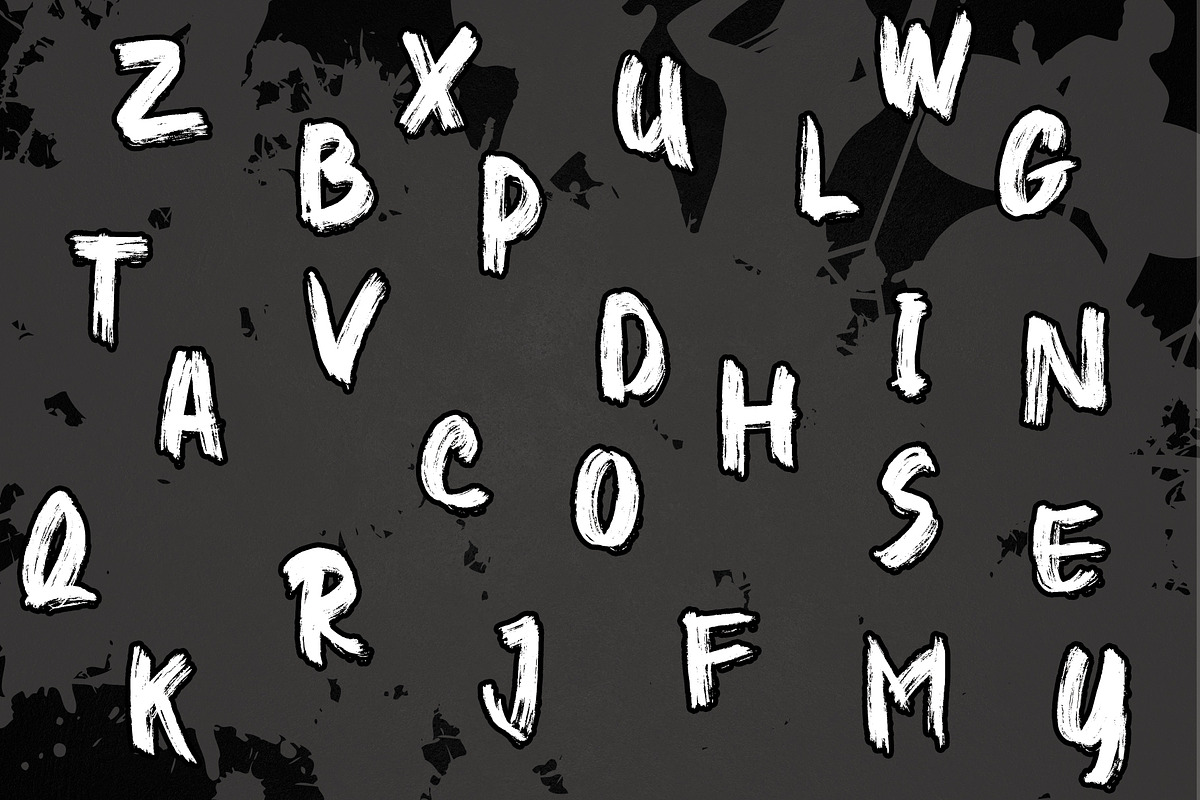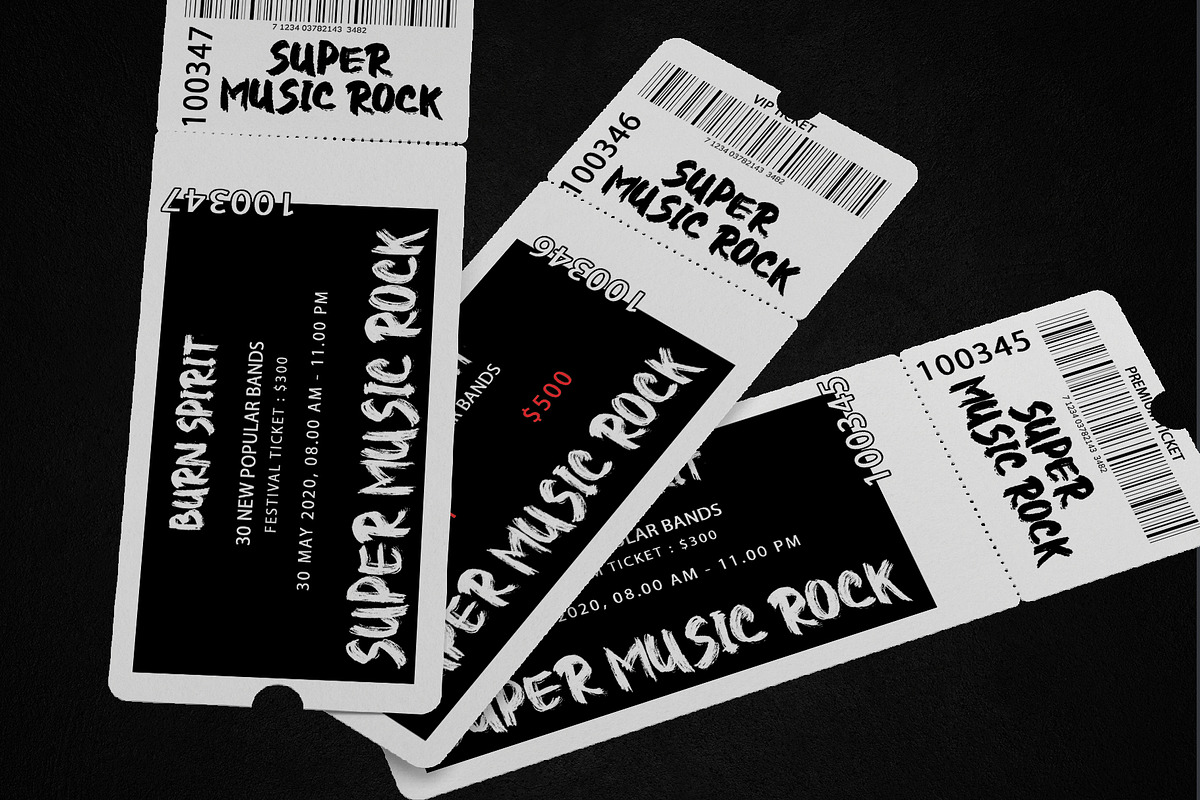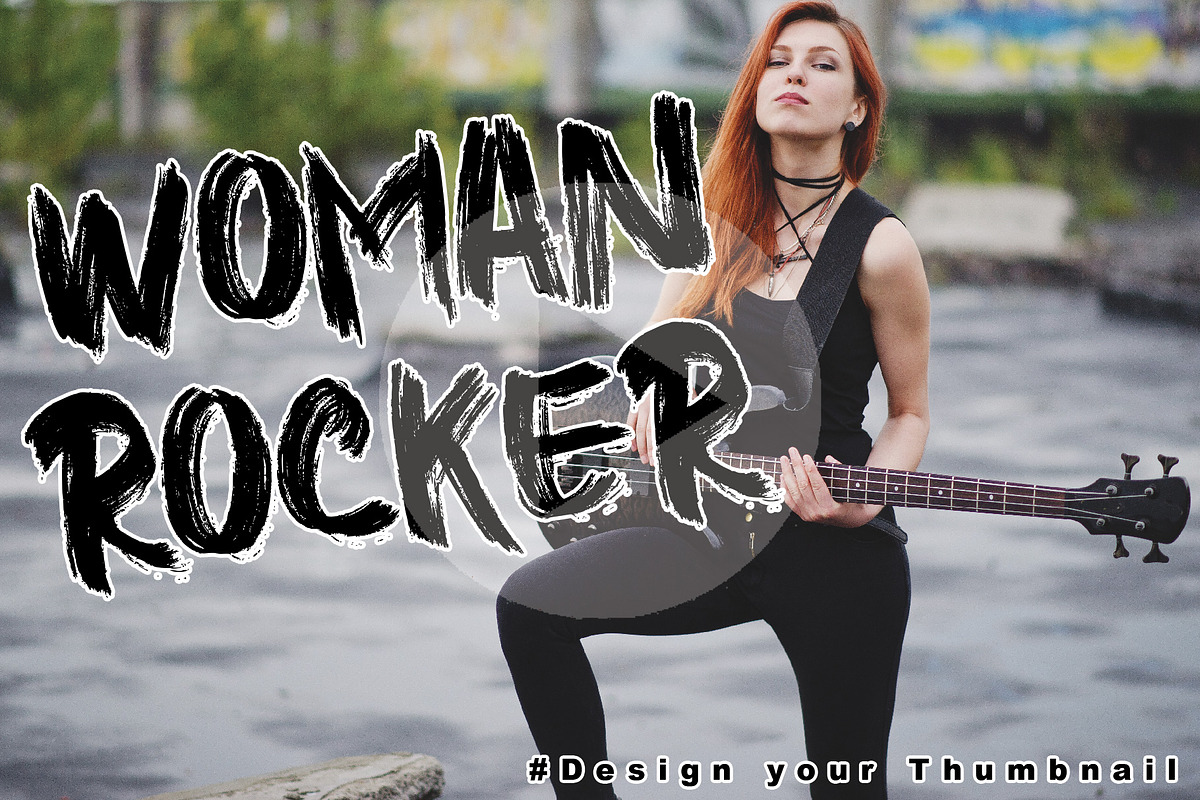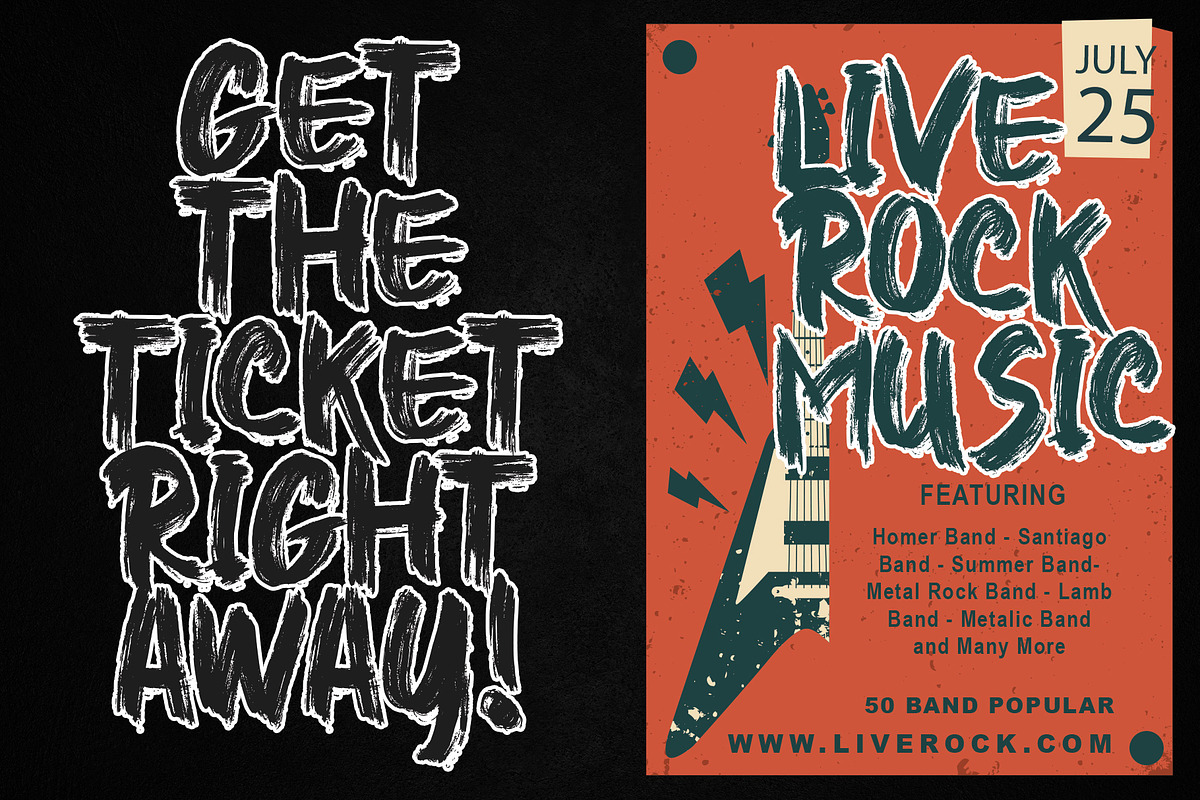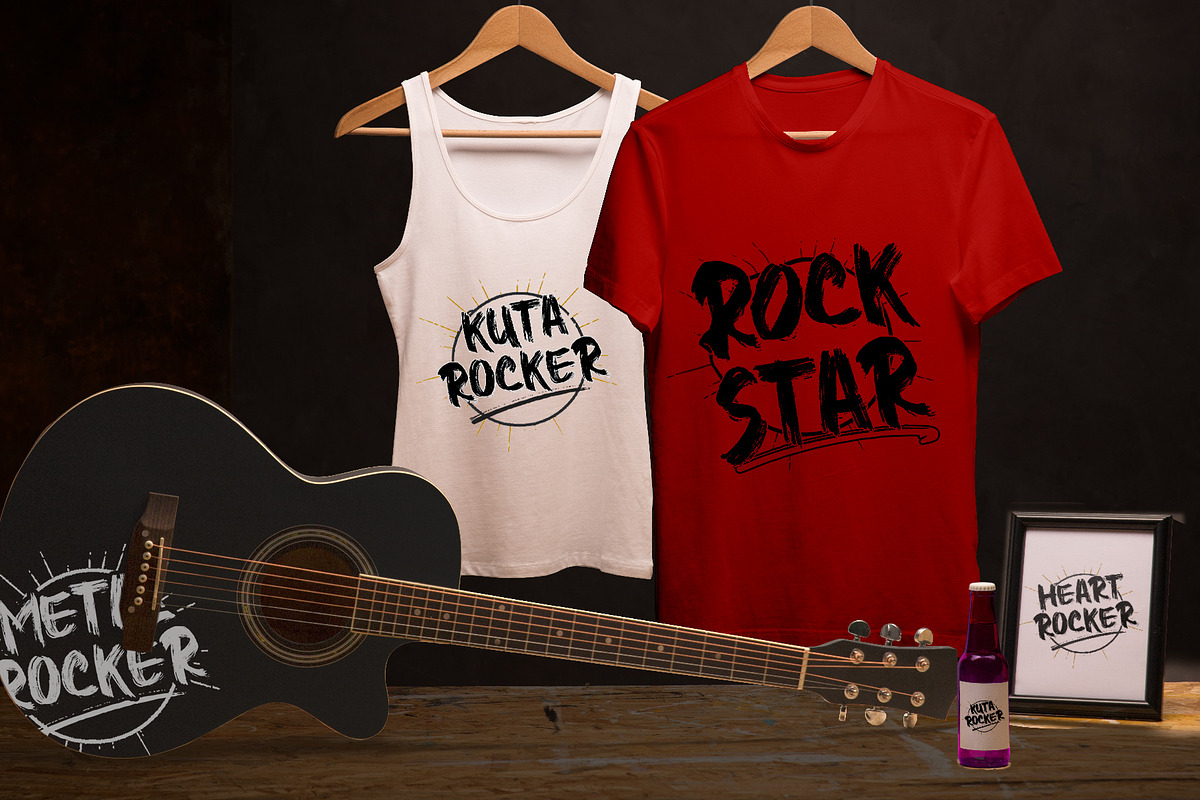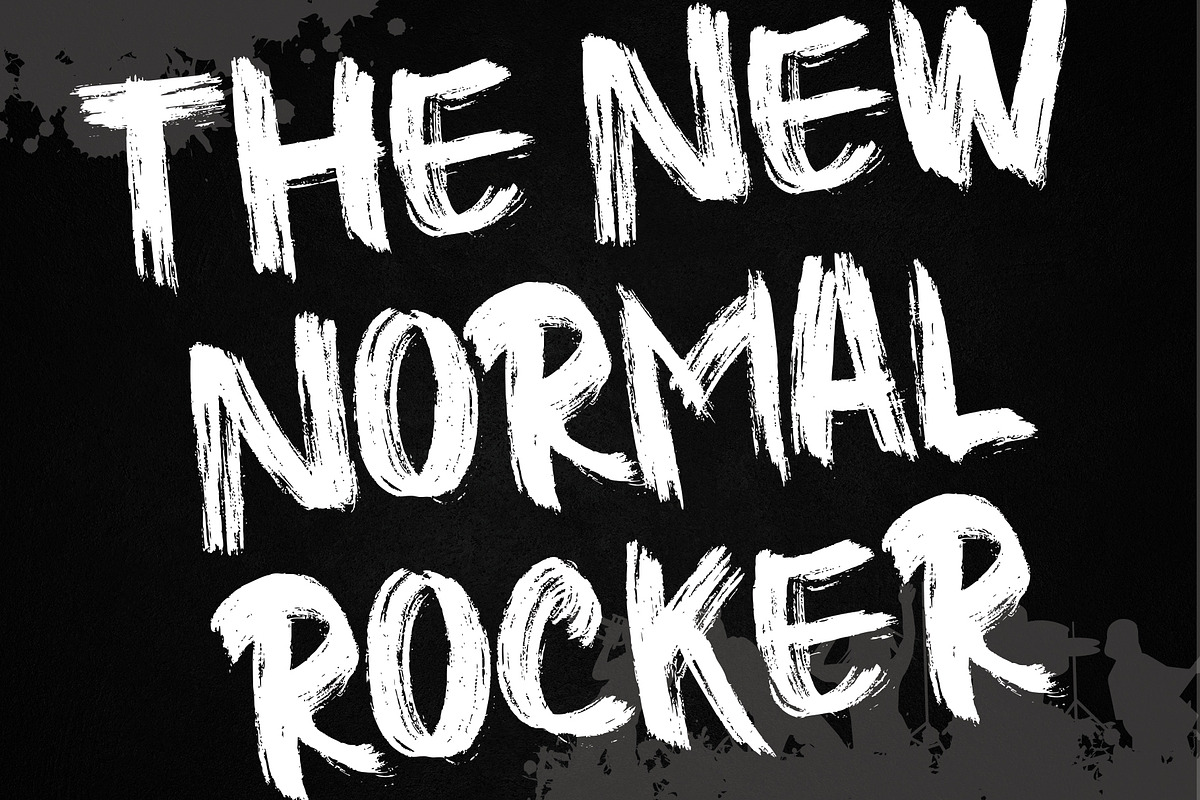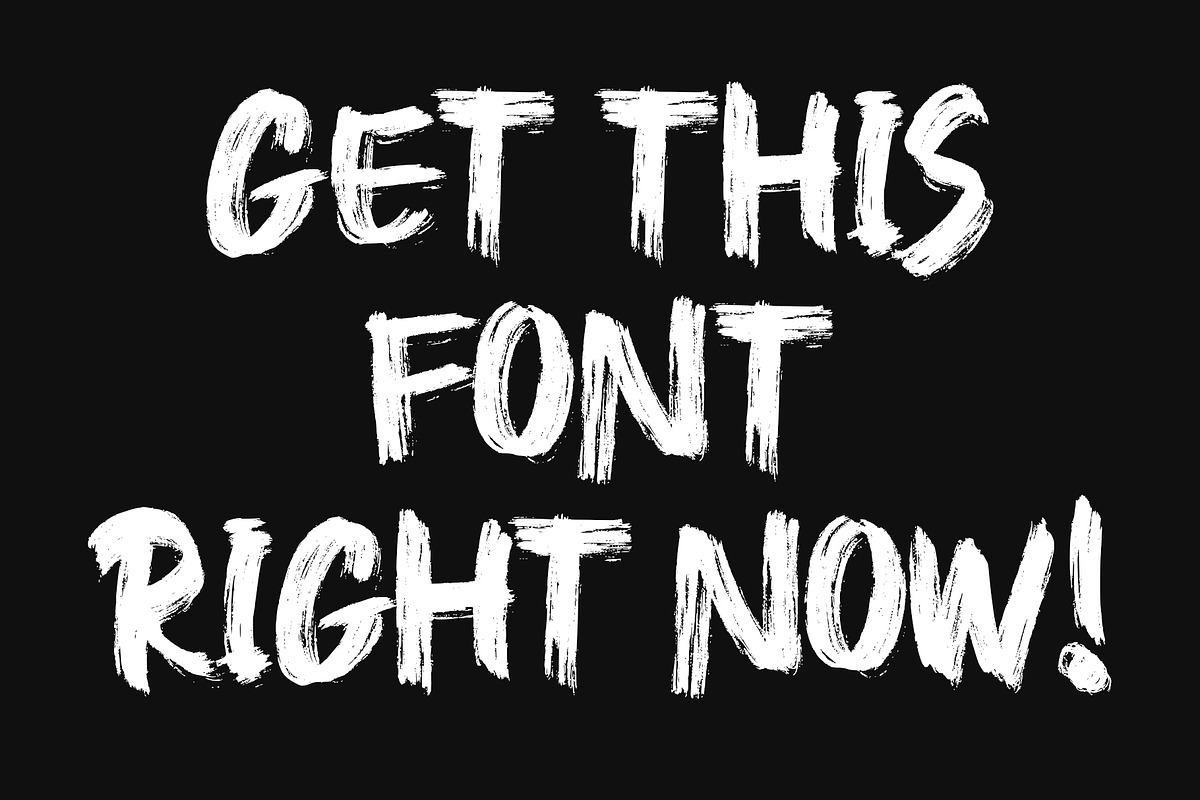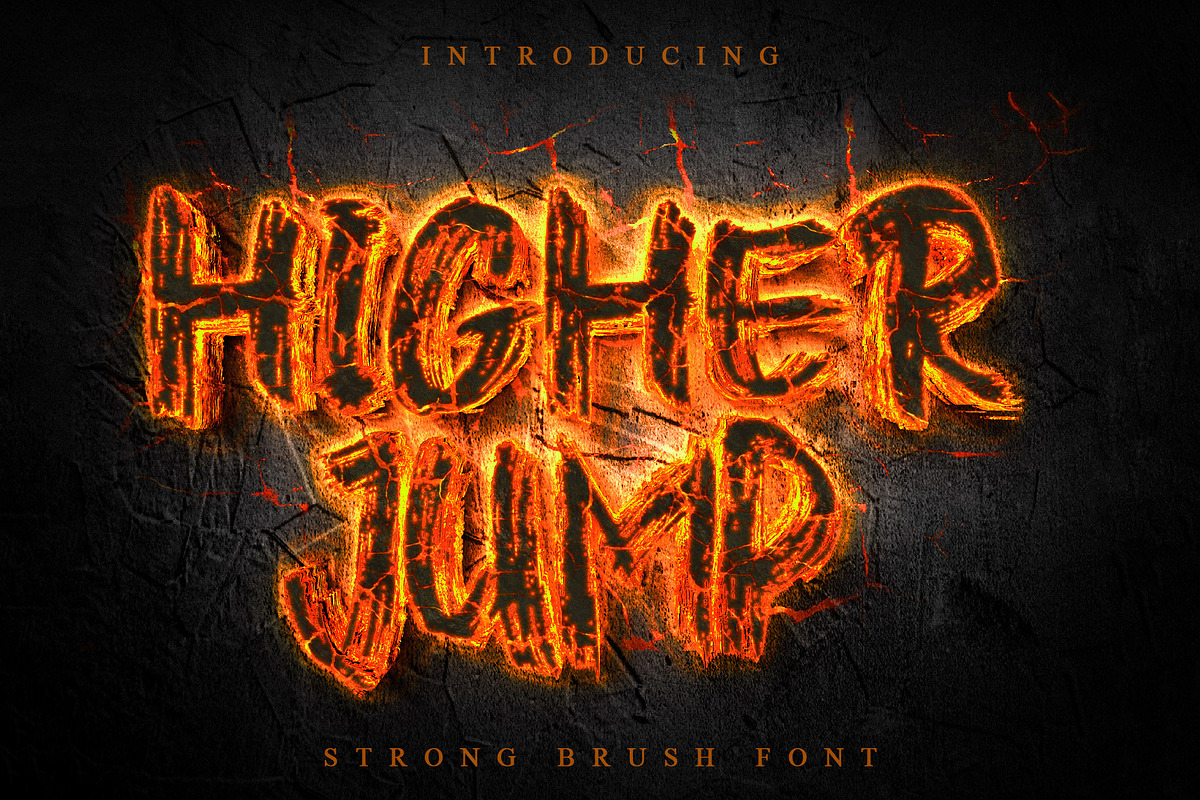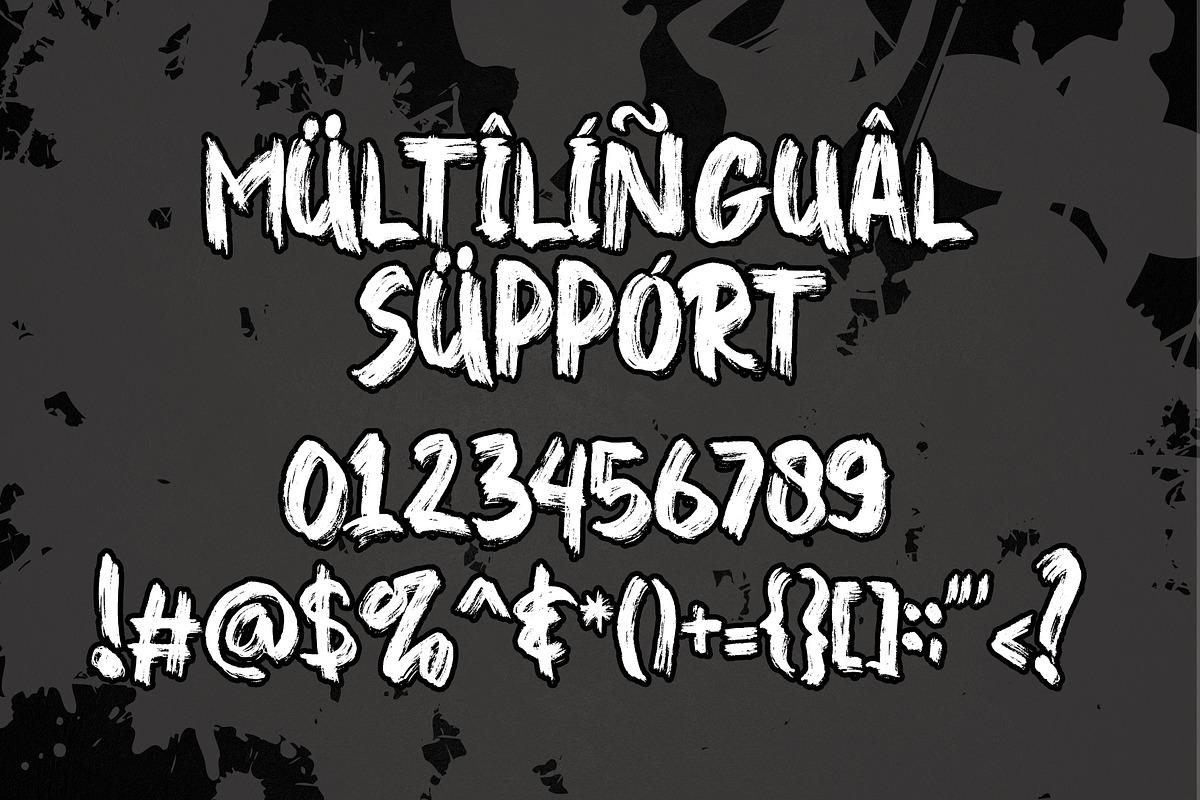
Higher Jump
Higher Jump is a natural dry brush font. this font has a striking look and a good flow font that can add style to your designs. It’s perfect for logos, advertising, branding, posters, movies, social media posts, youtube channels, and every other design which needs a strong touch. This is a PUA code which means you can access all the glyphs and sweeps easily!
- Support multilingual; ä ö ü Ä Ö Ü ß ¿ ¡
- lowercase and uppercase letters